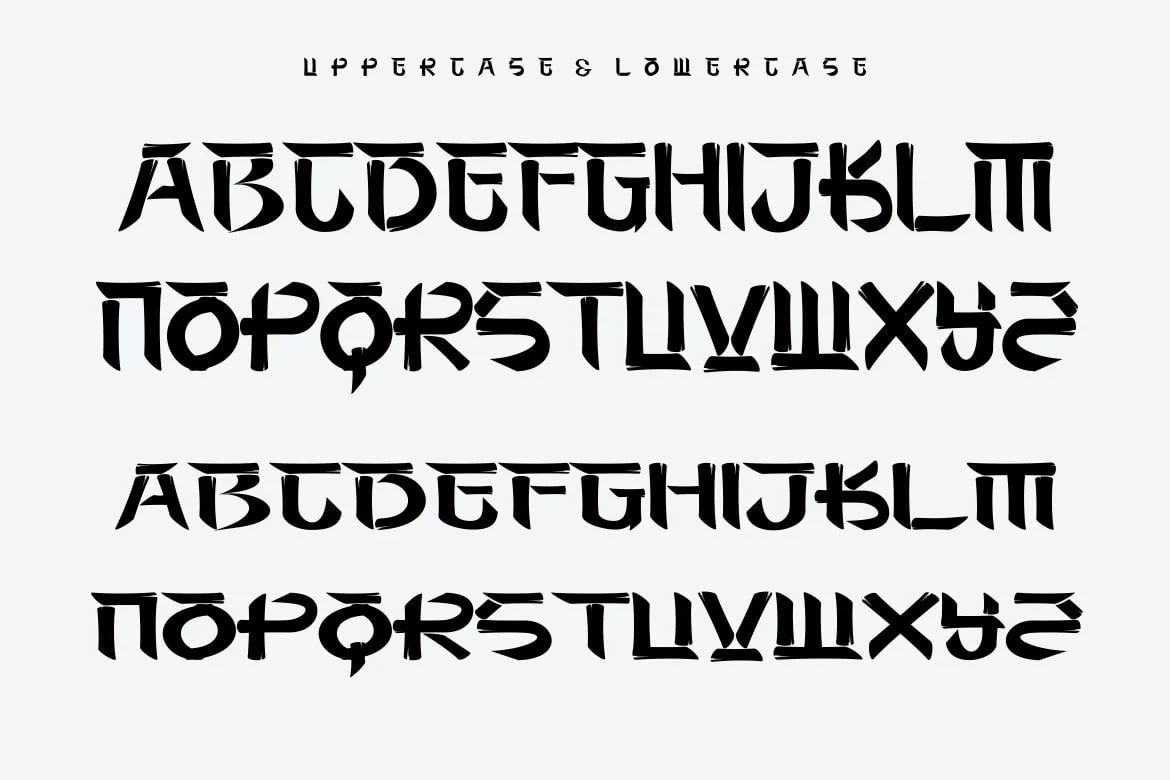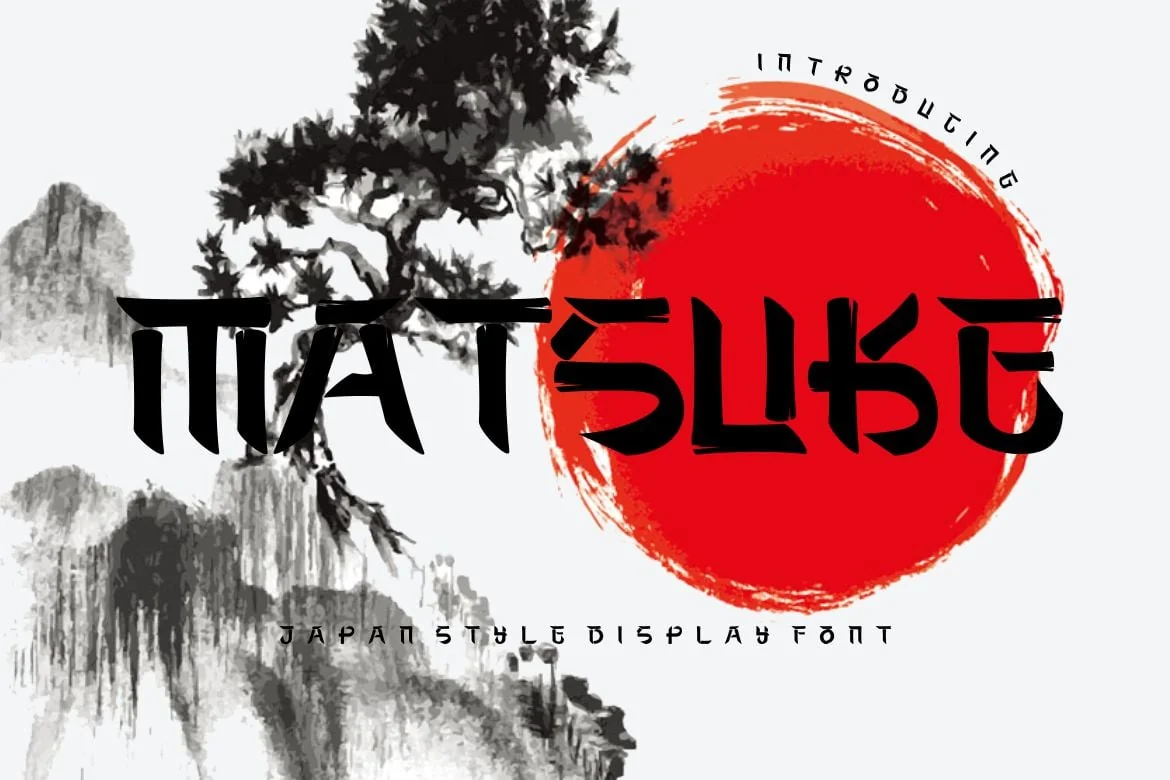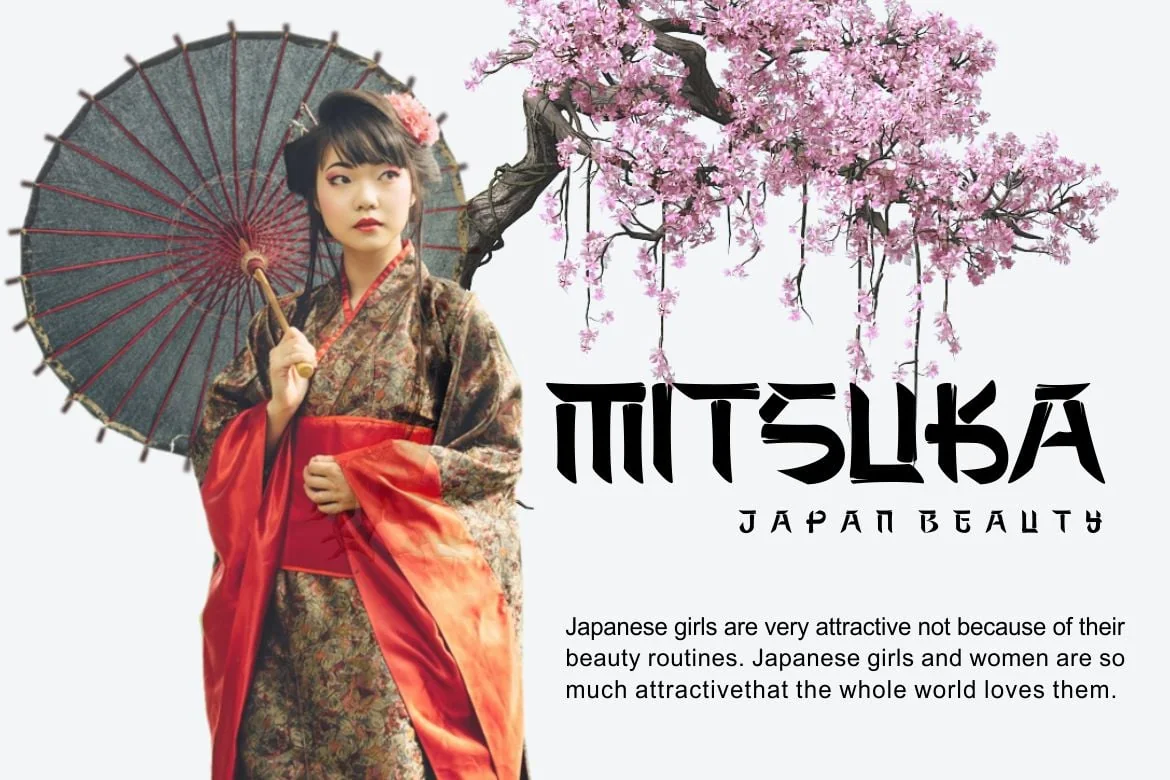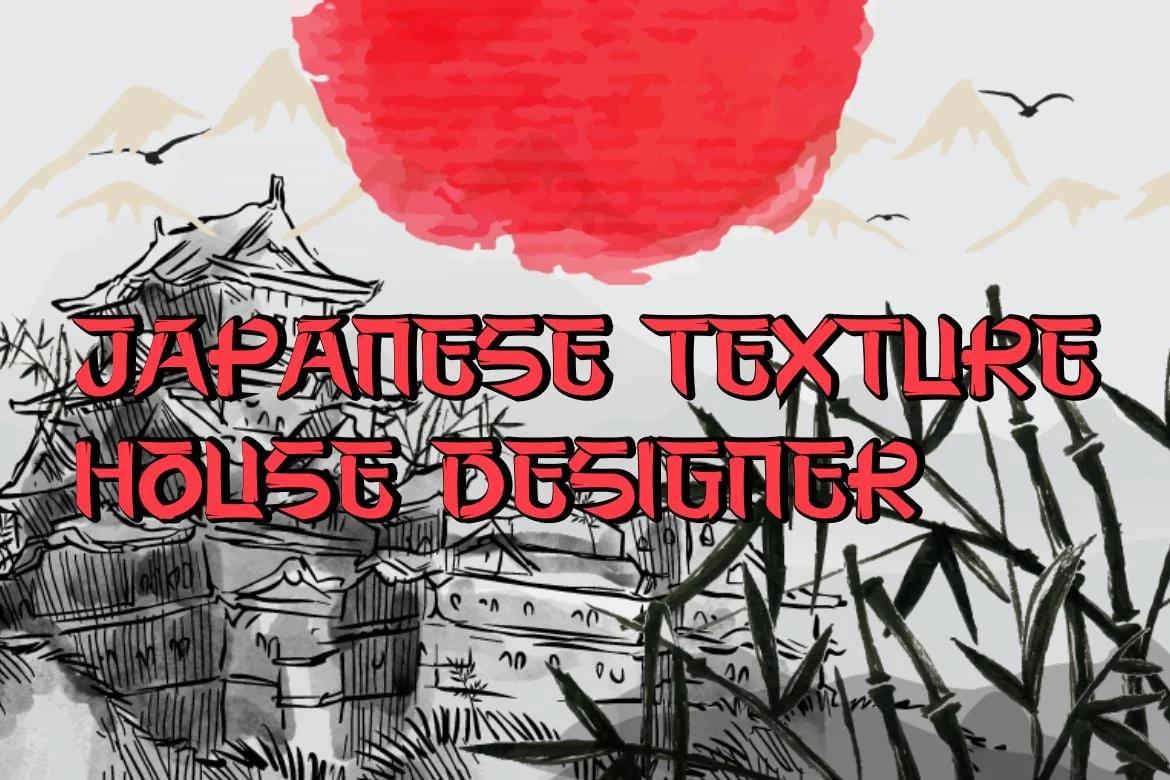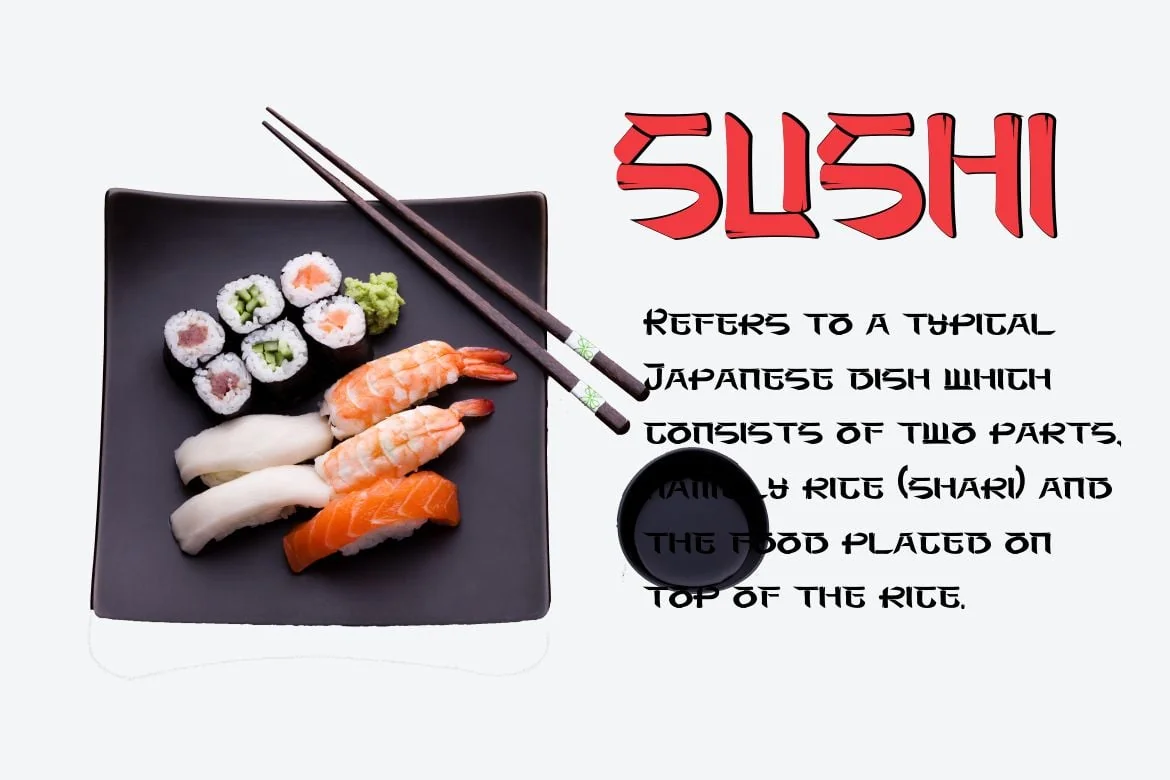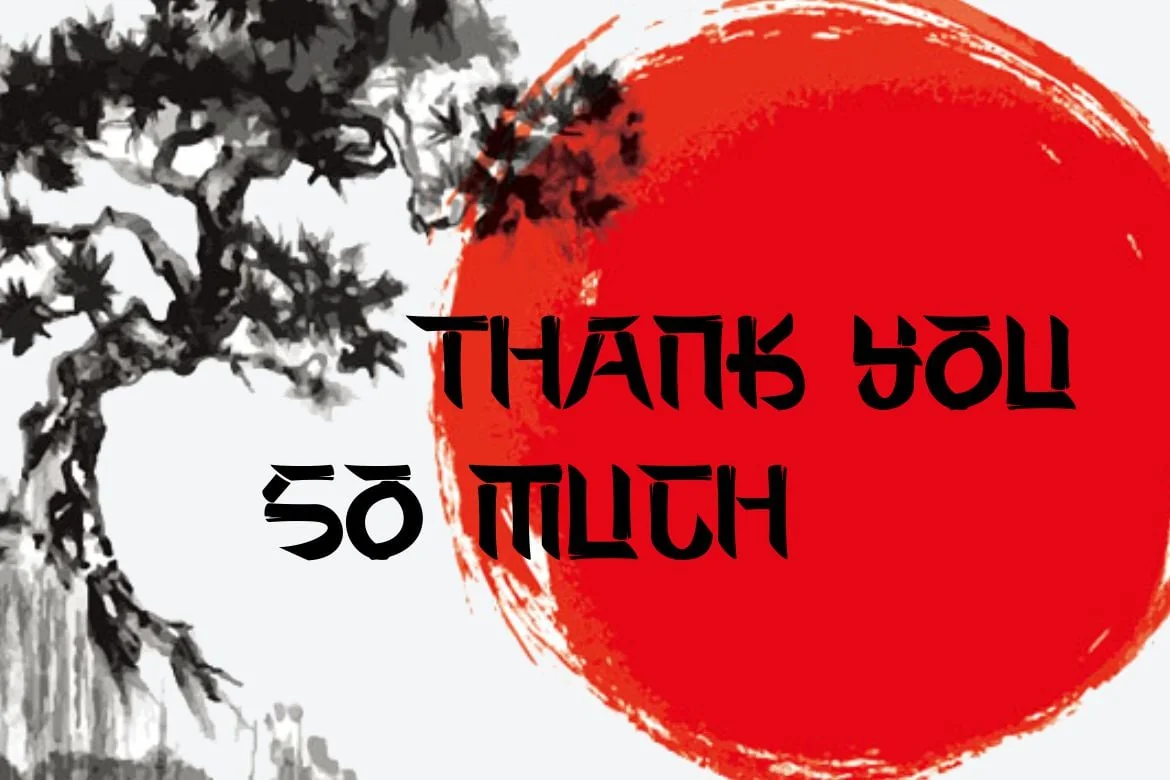
Matsuke – Japanese Style Display Font
Introducing our new product Matsuke – Japanese Style Display Font Modern Font
Matsuke – Japanese Style Display Font – Inspired by Japanese Typography. perfect for logos & branding, social media posts, advertisements & product designs.